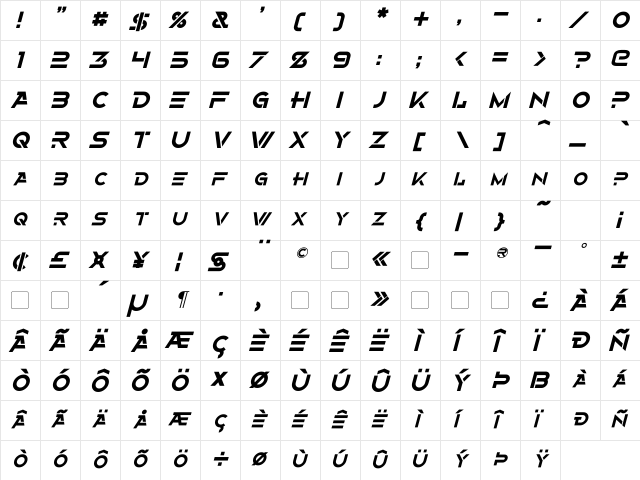
Alternity Italic
Design Context for Alternity Typeface
Alternity offers clean, dependable letterforms without strong stylistic allegiance, making it a practical choice for designers who need flexibility. The dynamic lean of this cut emphasises speed and emphasis in any layout.
Pro Tip: Use Alternity for emphasis, pull quotes, and subheadings where its slanted energy can add rhythm to the layout.